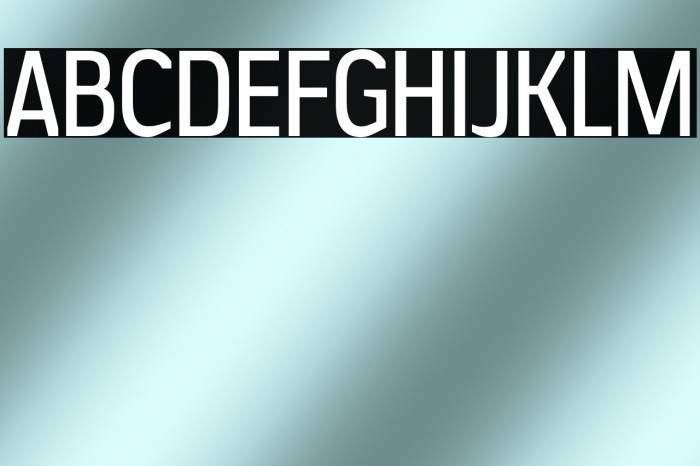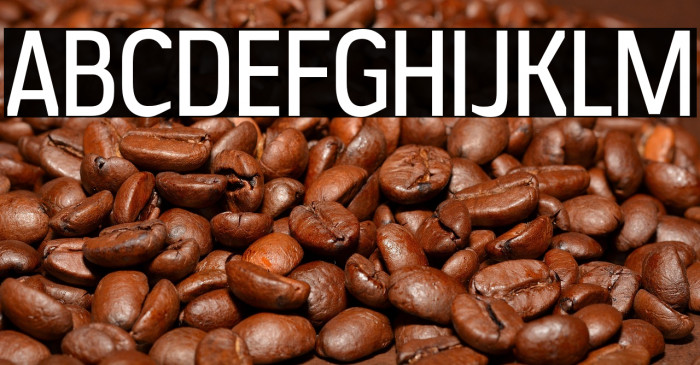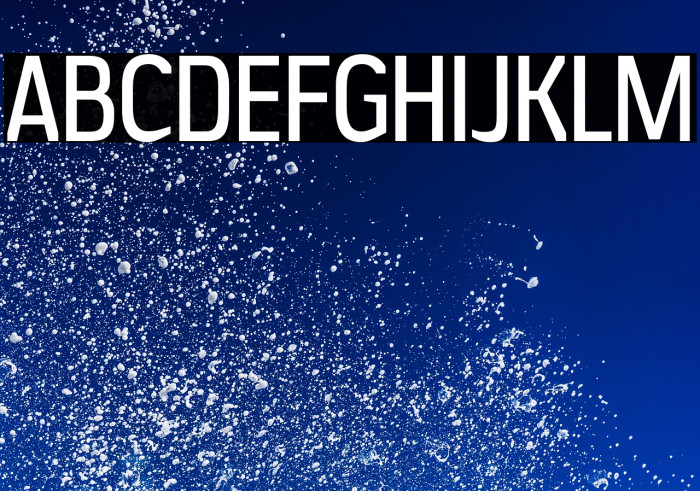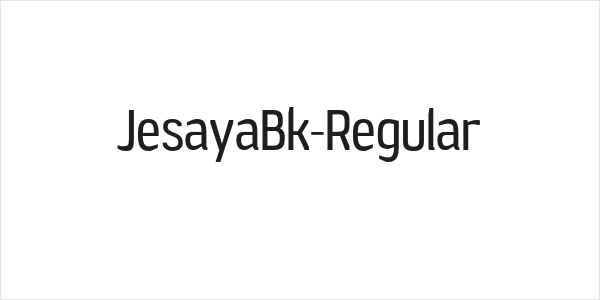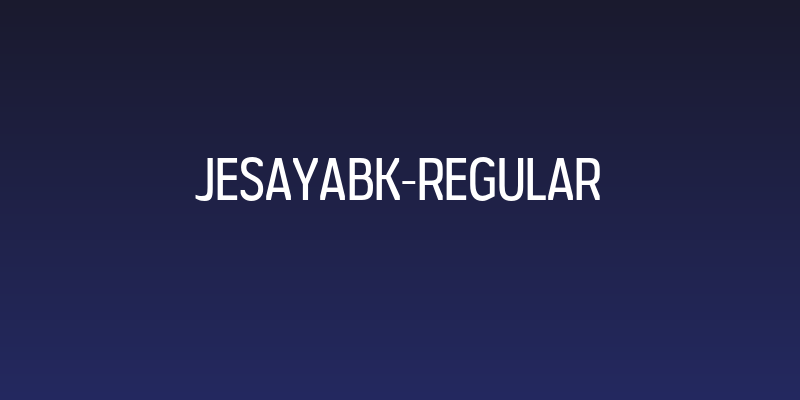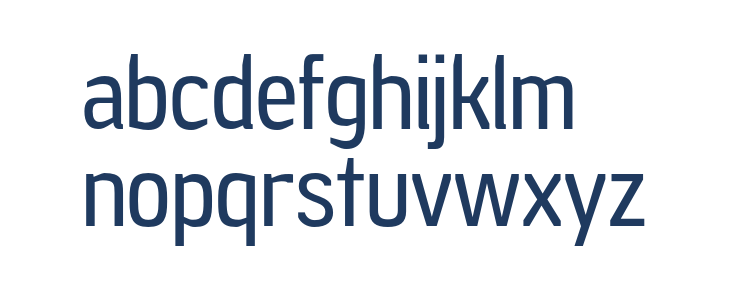
JesayaBk-Regular Font
JesayaBk-Regular Description
This typeface features a clean and modern sans-serif design, characterized by its geometric shapes and uniform stroke widths. The uppercase letters are bold and assertive, while the lowercase letters maintain a balanced and approachable appearance. The numerals are clear and easily distinguishable, making them suitable for various applications. The special characters are well-integrated, maintaining the overall aesthetic of the font. This typeface is versatile and can be used in both digital and print media, offering readability and a contemporary look.
| Proposed Projects | Ideal for branding, web design, advertising, and editorial layouts. |